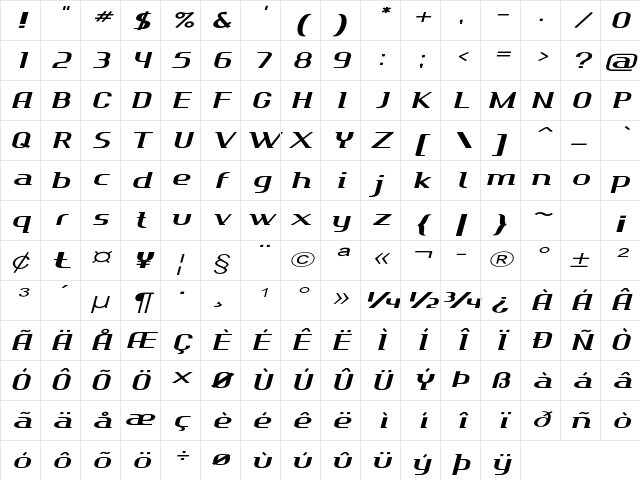
Drivel Extra-expanded Regular
Style: Extra-expanded Regular
Drivel Family
Drivel Extra-expanded Regular
Complete Drivel Extra-expanded Regular glyph index. Displaying only characters natively supported by Drivel Extra-expanded Regular font.
Design Context for Drivel
Drivel is a composed and adaptable typeface that performs quietly and consistently across a wide range of design contexts.